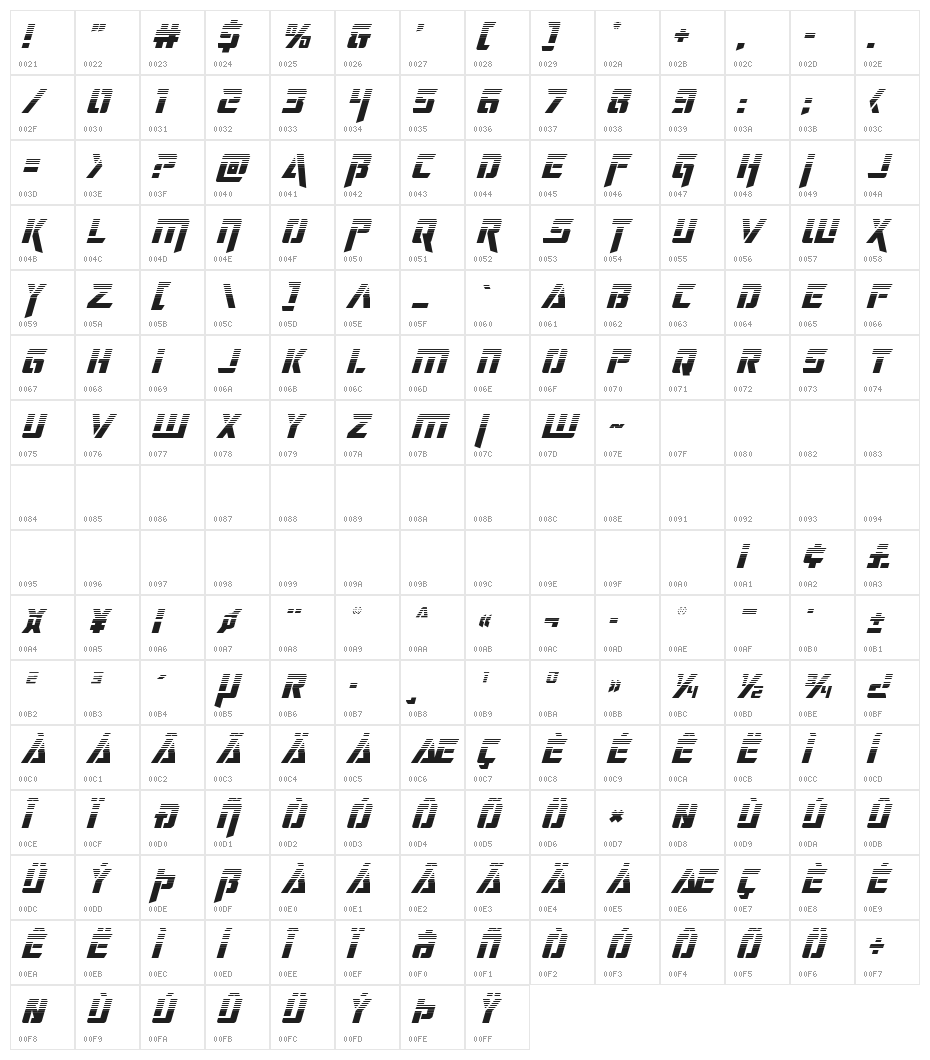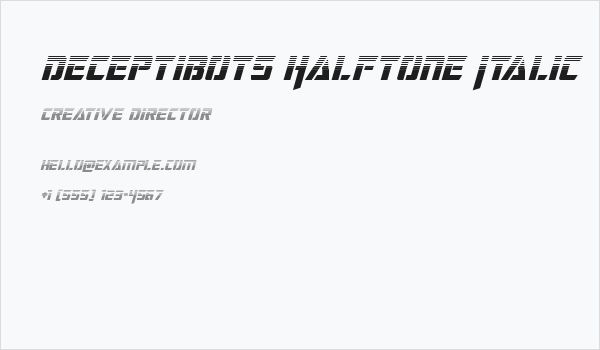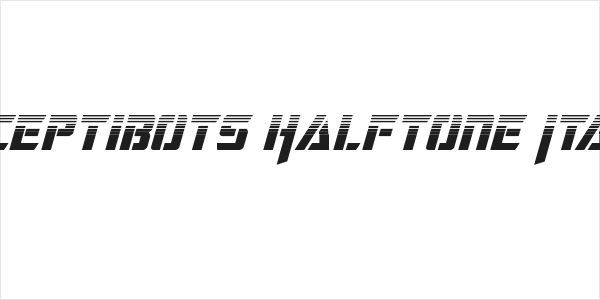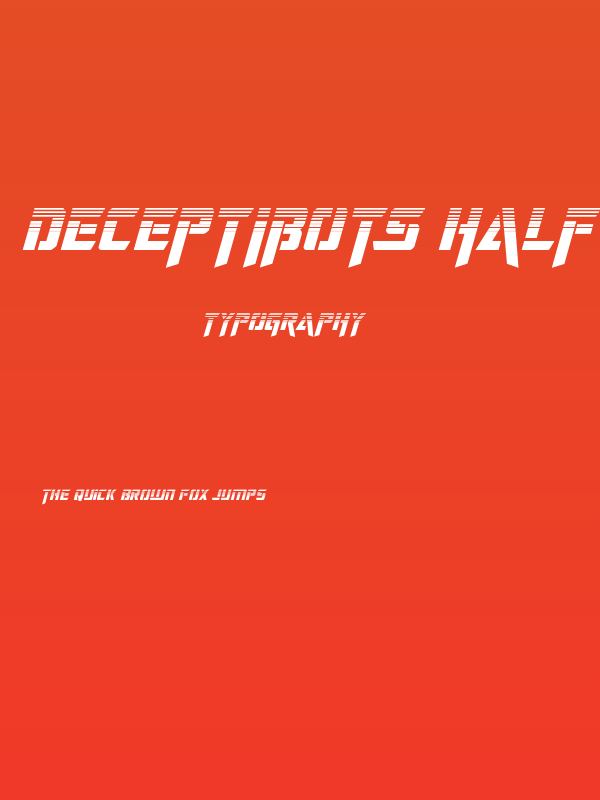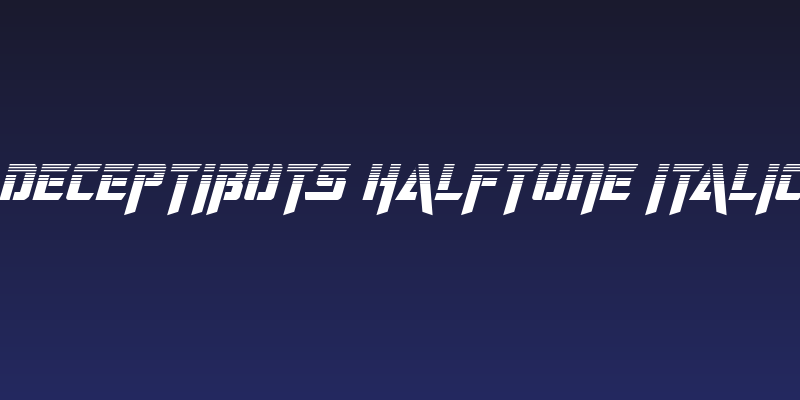
Deceptibots Halftone Italic Font
Deceptibots Halftone Italic Description
This font features a bold, futuristic design with a distinct halftone effect that gives it a dynamic and energetic appearance. The characters are italicized, adding a sense of motion and speed. The uppercase and lowercase letters maintain a consistent style, with sharp angles and geometric shapes. The numbers and special characters are designed to match the overall aesthetic, ensuring a cohesive look across all text. The font's unique style makes it stand out, ideal for projects that require a modern and edgy feel.
| Proposed Projects | Ideal for sci-fi themed designs, video game graphics, movie posters, and branding for tech companies. |